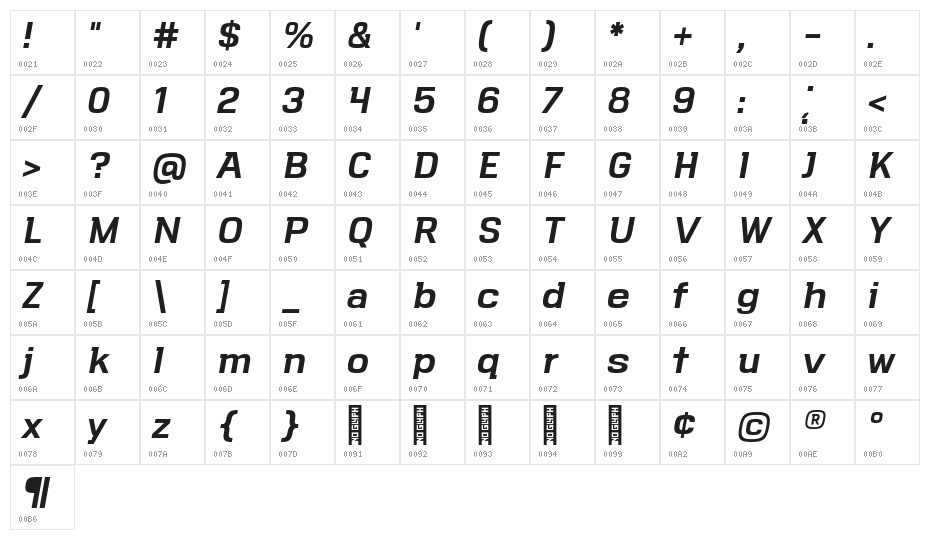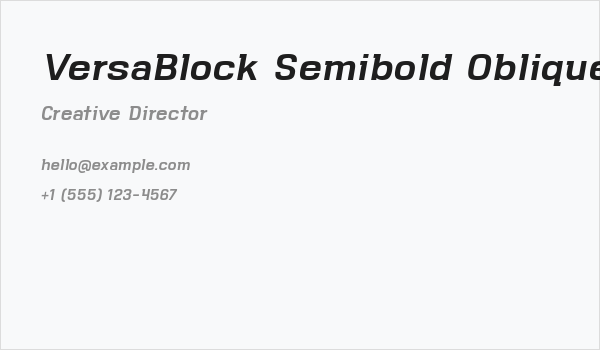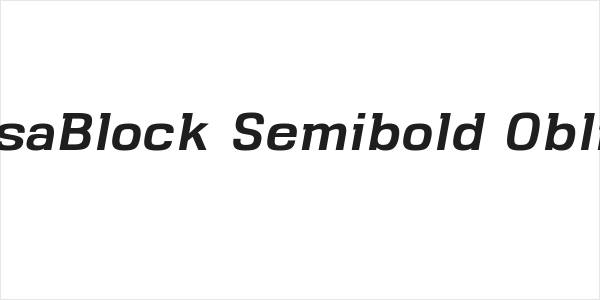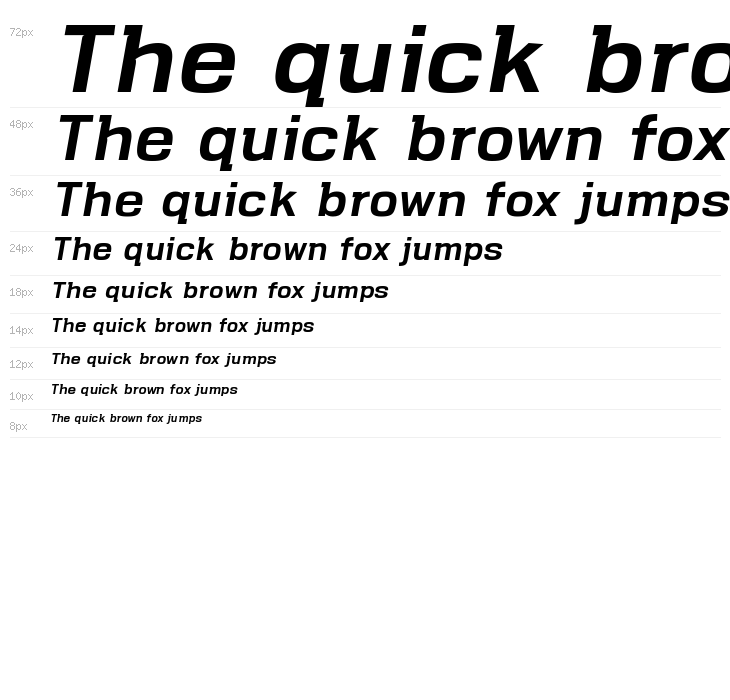
VersaBlock Semibold Oblique Font
VersaBlock Semibold Oblique Description
This font exhibits a modern and dynamic style with an oblique slant, giving it a forward-moving appearance. The characters are bold and semi-condensed, providing a strong presence while maintaining readability. The uppercase and lowercase letters are well-balanced, with consistent stroke thickness that offers medium contrast. The numerals and special characters are designed to complement the alphabet, ensuring uniformity across all glyphs. This font's clean lines and contemporary aesthetic make it suitable for a variety of design applications.
| Proposed Projects | Ideal for branding, advertising, sports team logos, and dynamic headlines. |